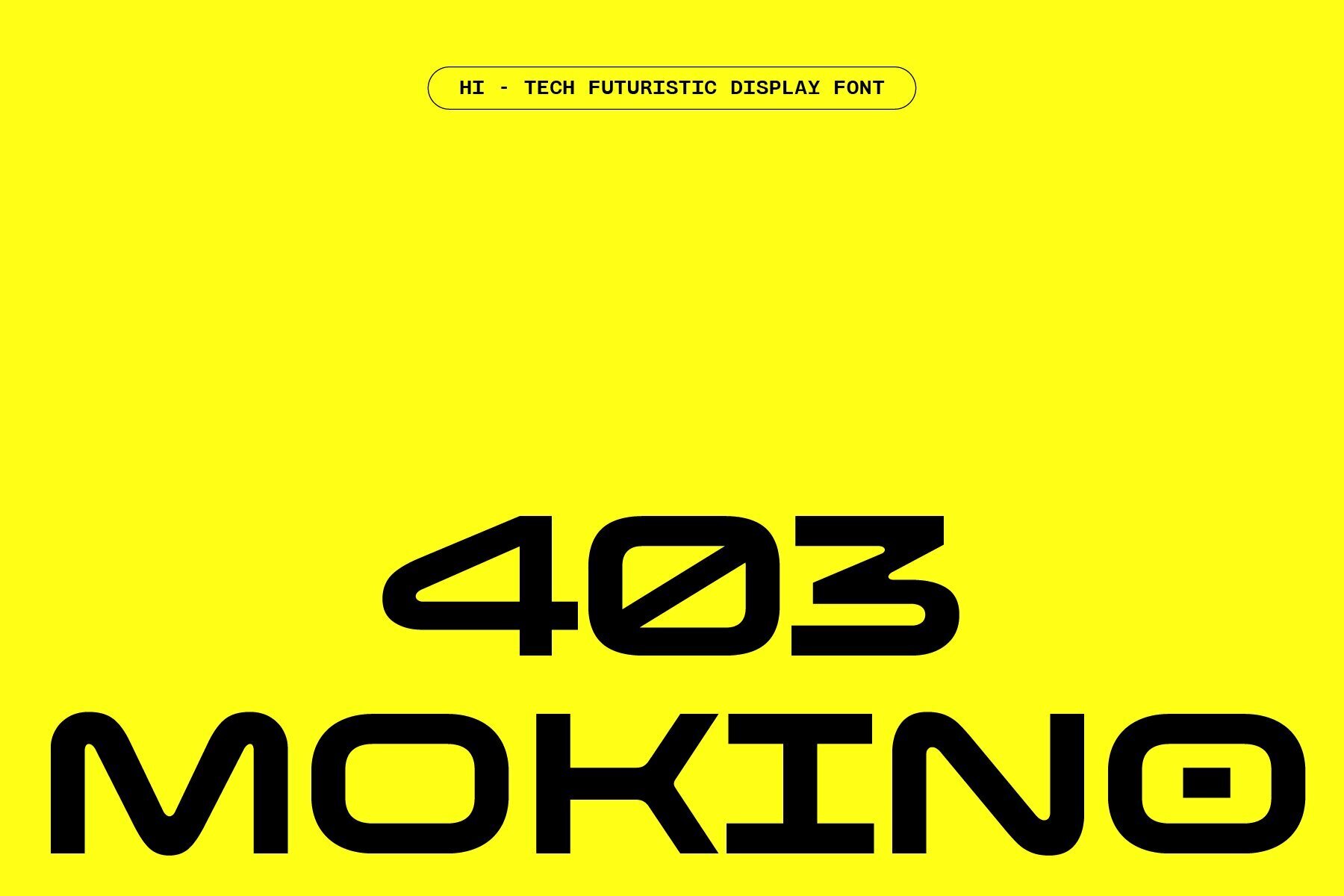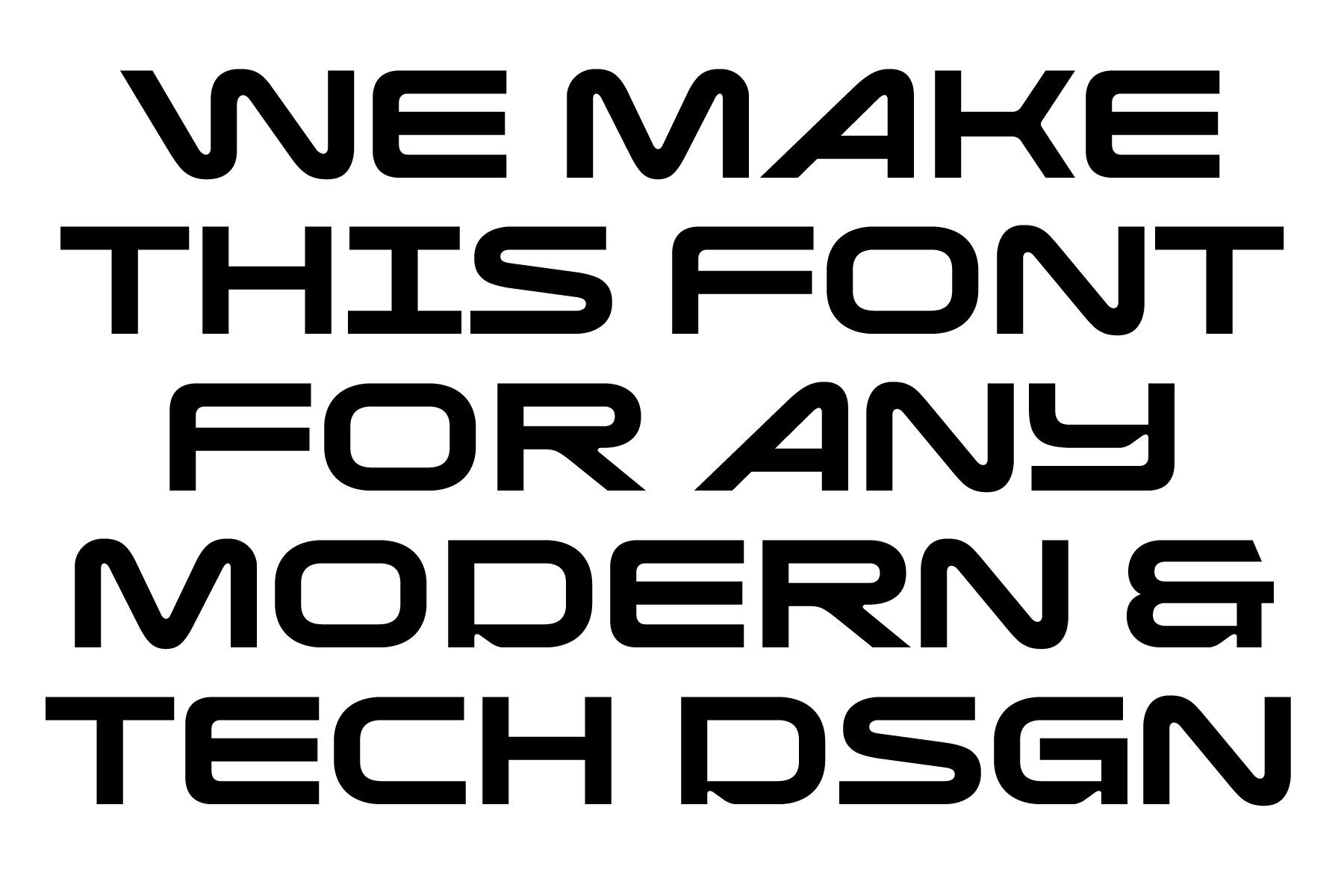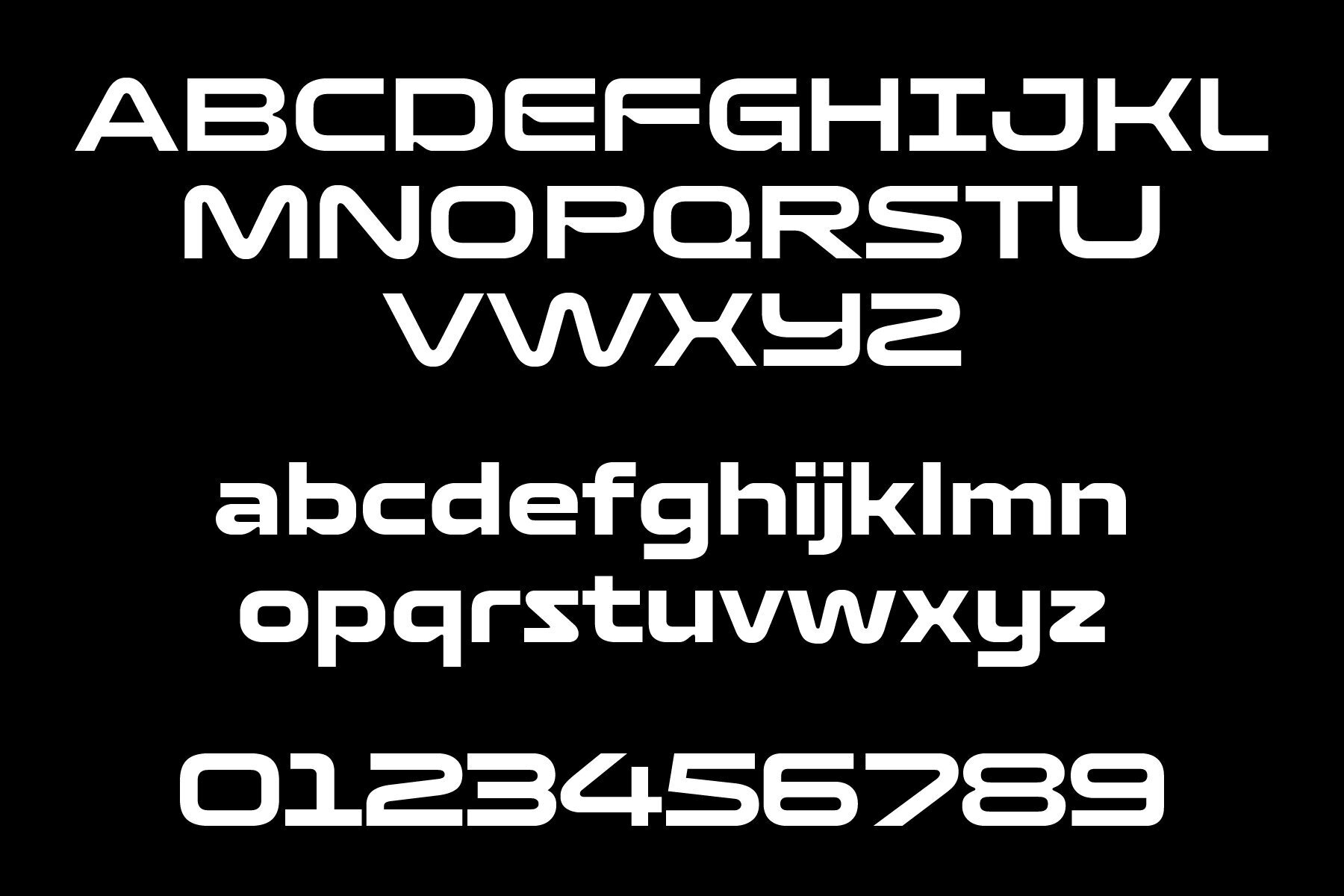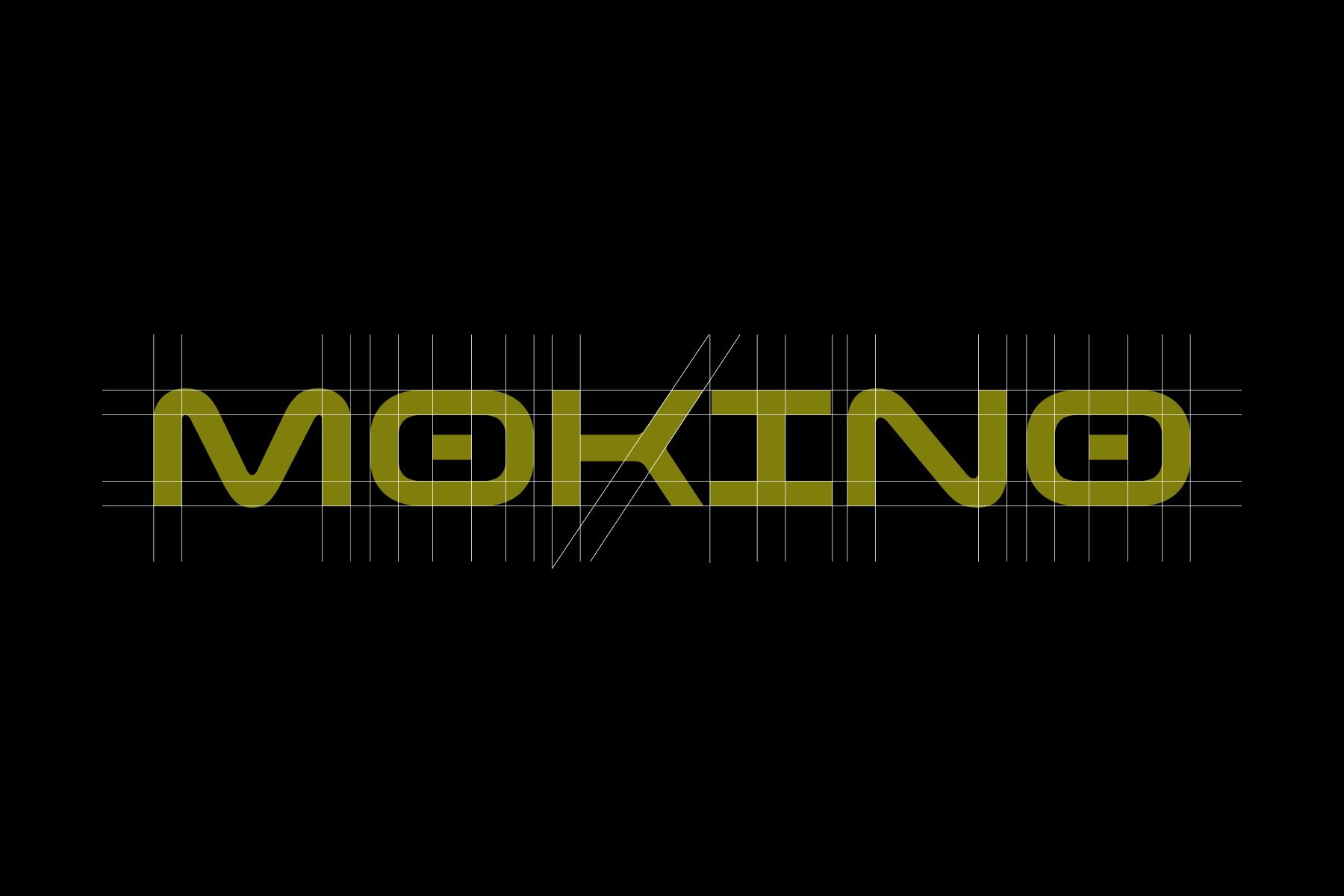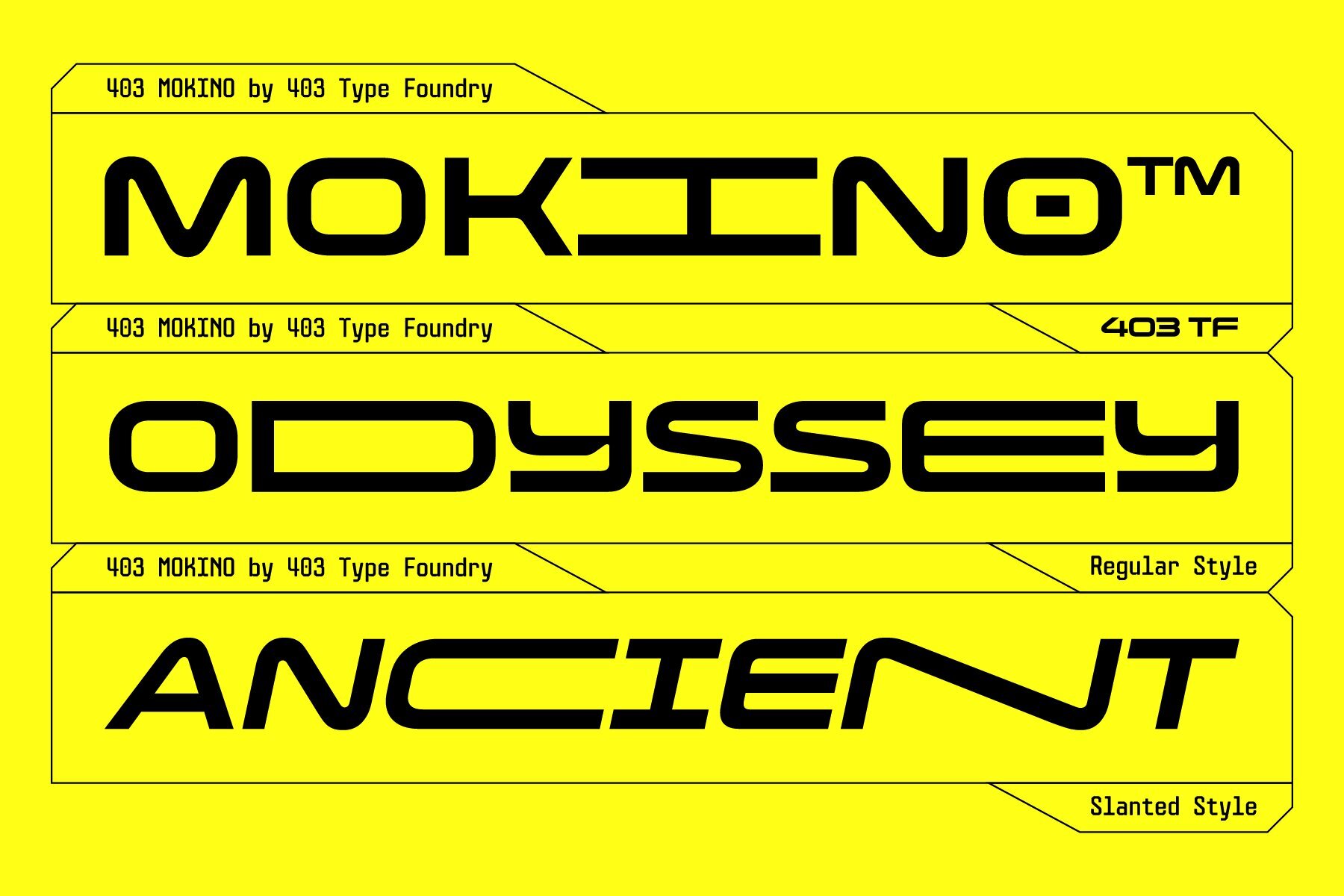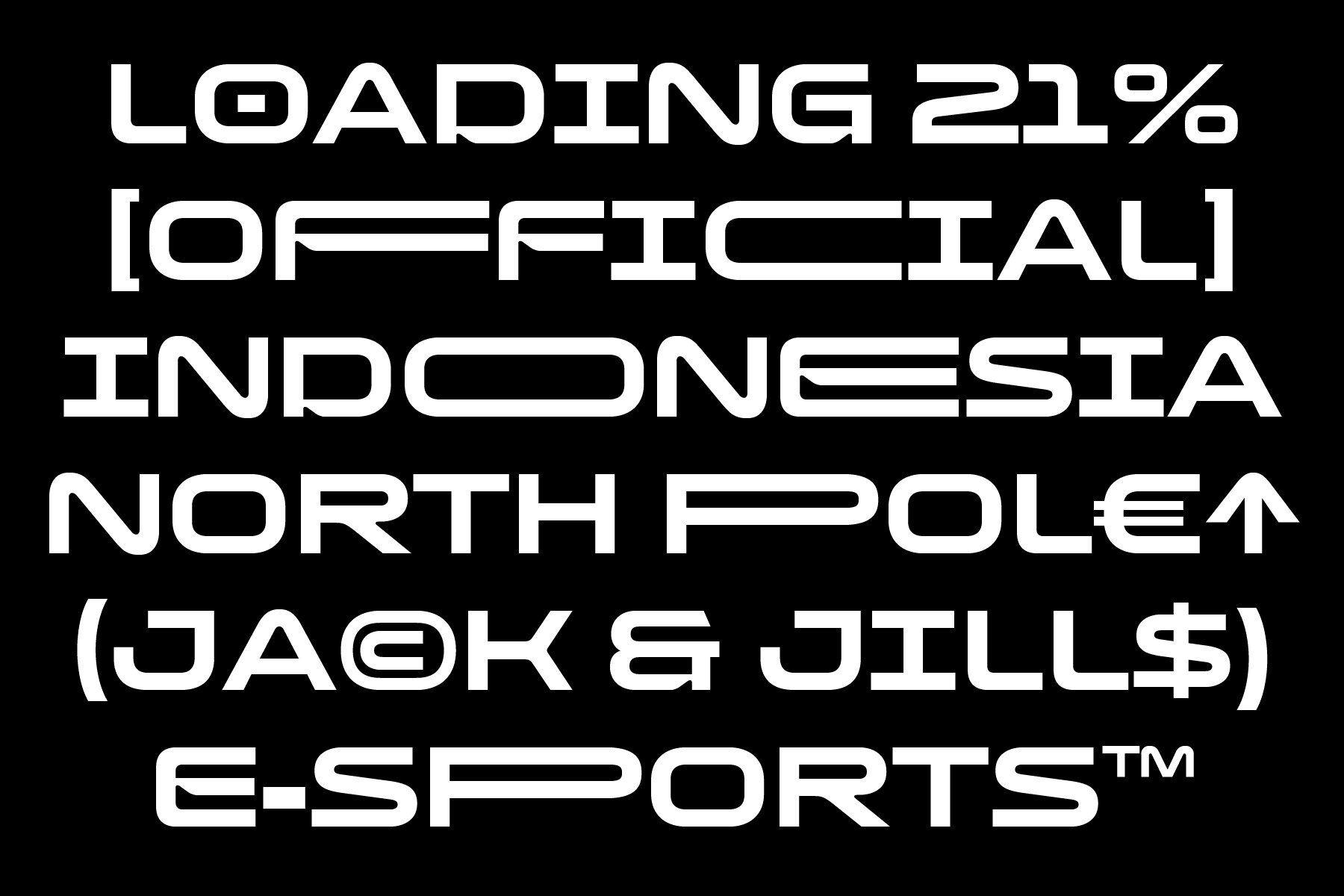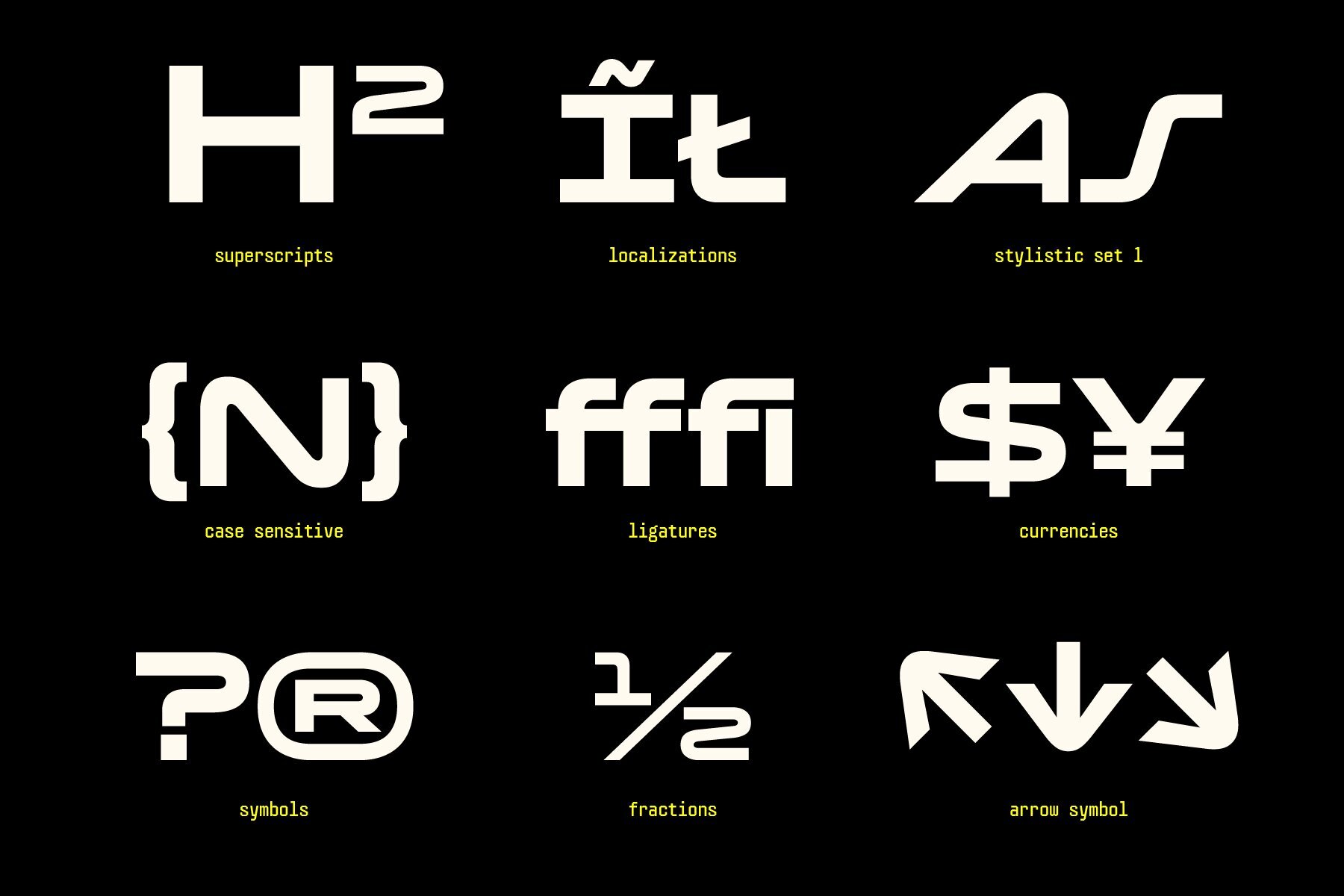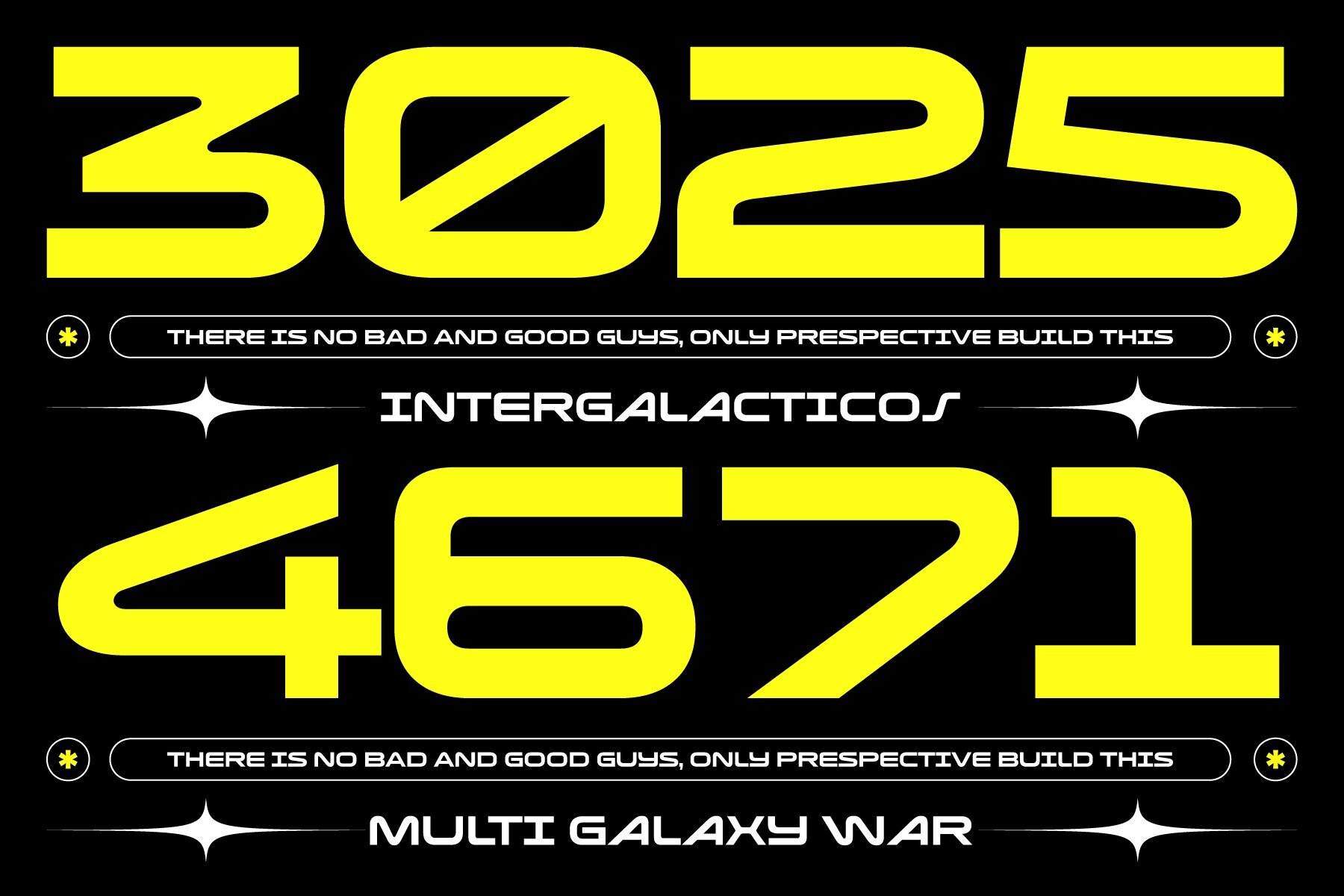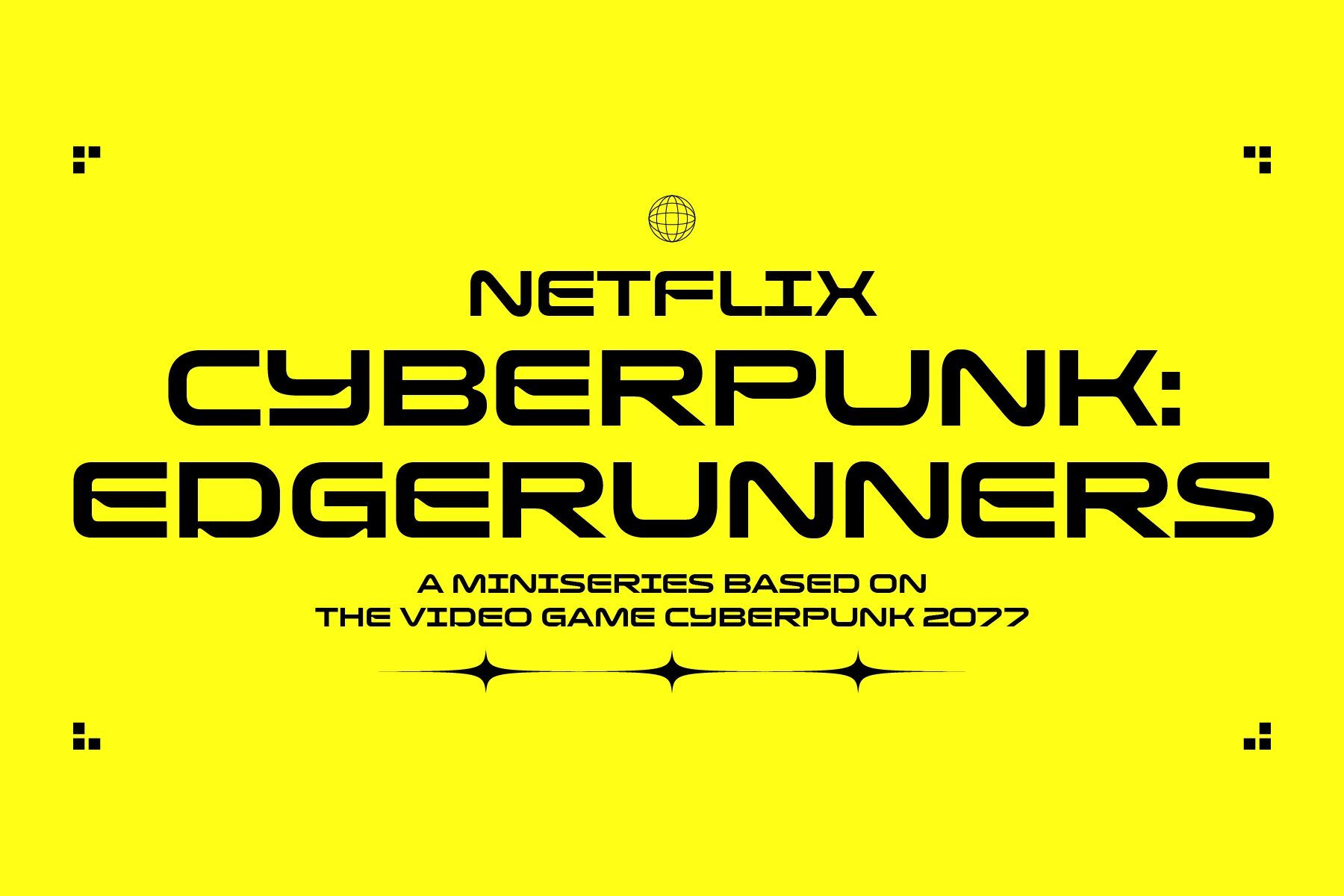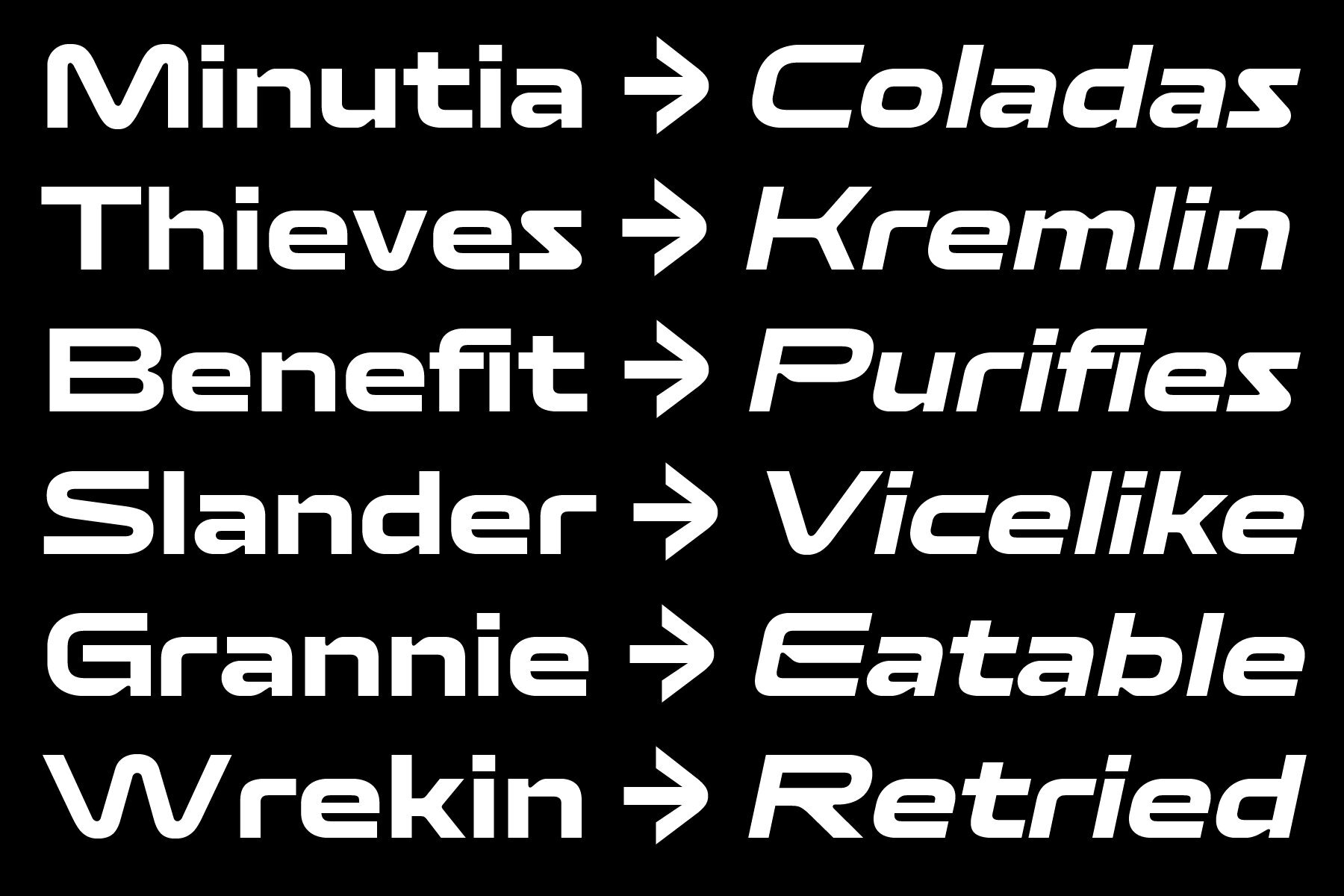
403 Mokino Font
403 Mokino is a clean, futuristic typeface made for tech-driven, contemporary applications. It appears bold and lively because to its beautiful blend of smooth curves and sharp cuts. Visual harmony is guaranteed by the uniform design language used for all characters, and its somewhat enlarged proportions lend solidity and refinement. The font's geometric style makes it a great option for branding, logos, headlines, and tech-related projects. It is also quite readable, making it appropriate for both capital and lowercase usage. Ideal for futuristic, sci-fi, or gaming themes, 403 Mokino offers a modern style that makes a statement in print and digital media. This typeface's sleek and innovative style makes it the perfect choice for designers looking for a contemporary, polished, and adaptable font.